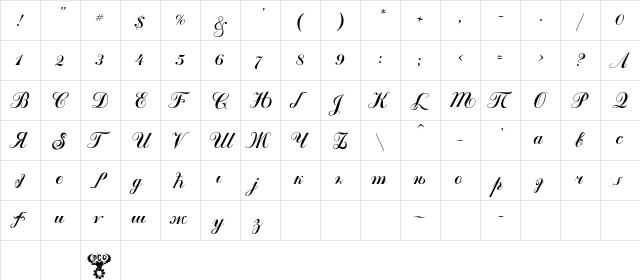
Kremlin Tsaritsa Script Italic Italic
Design Context for Kremlin Tsaritsa Script Italic Typeface
Kremlin Tsaritsa Script Italic brings a calligraphic fluidity to the page — its connecting strokes and expressive curves give it an unmistakably human quality.
Font Pairing: Combine Kremlin Tsaritsa Script Italic with a simple geometric sans for maximum contrast — the tension between flowing curves and clean structure is a classic typographic pairing.
Pro Tip: Use Kremlin Tsaritsa Script Italic for short runs of text — names, titles, or taglines. Extended body copy in script faces tires the eye quickly.